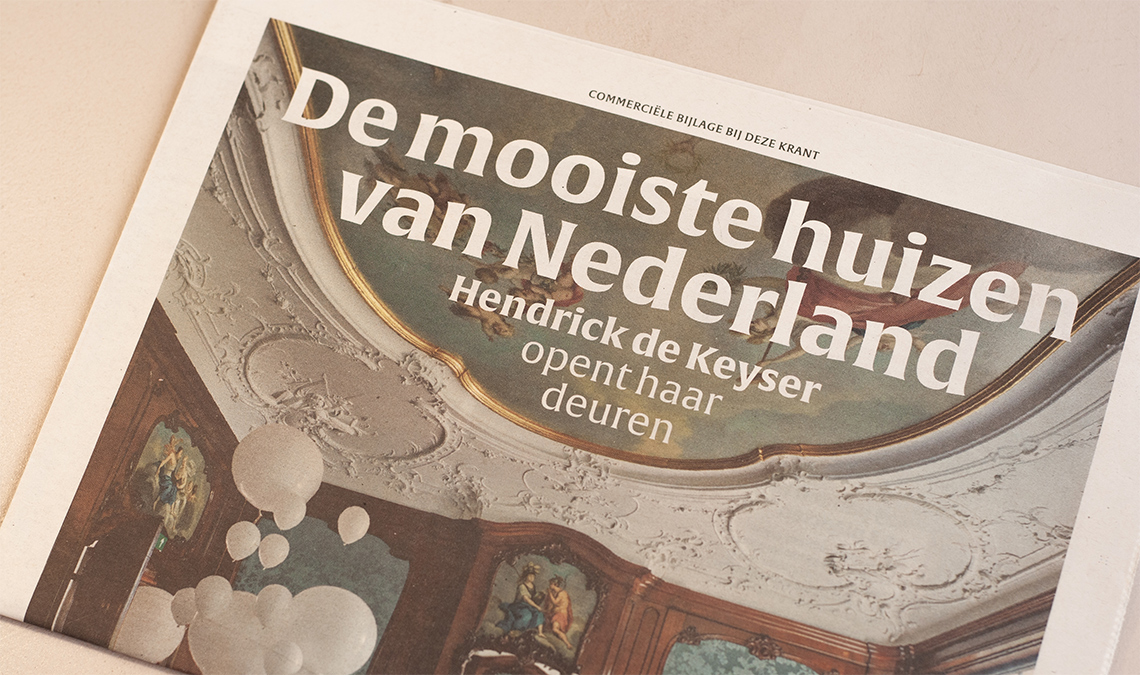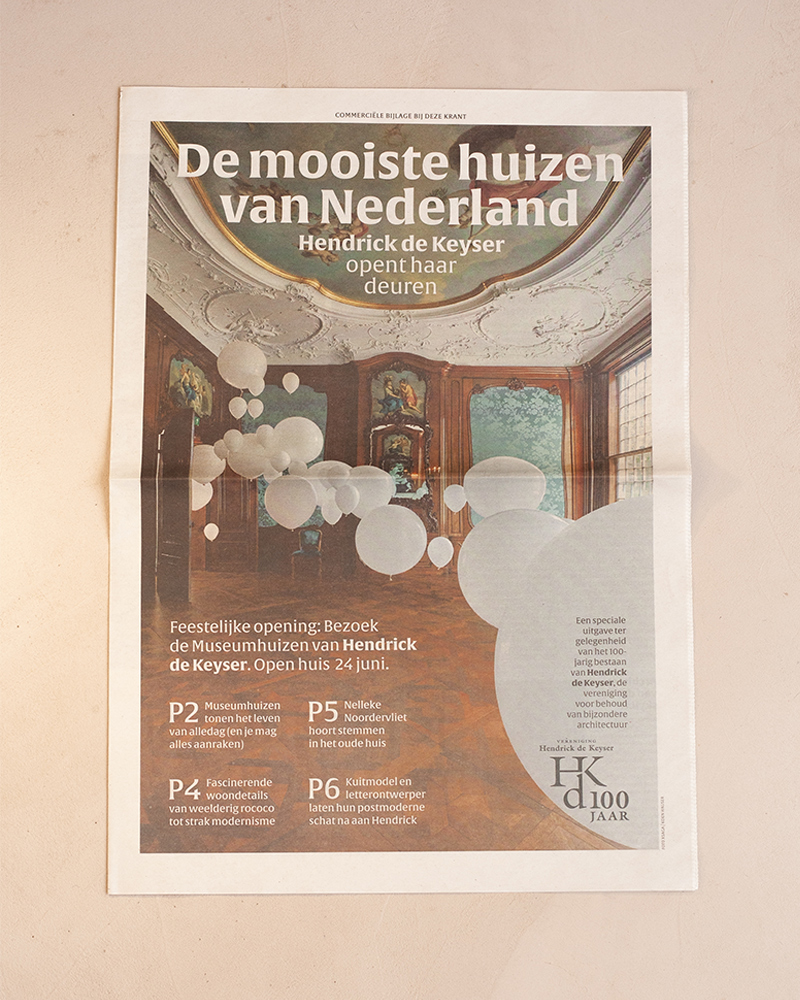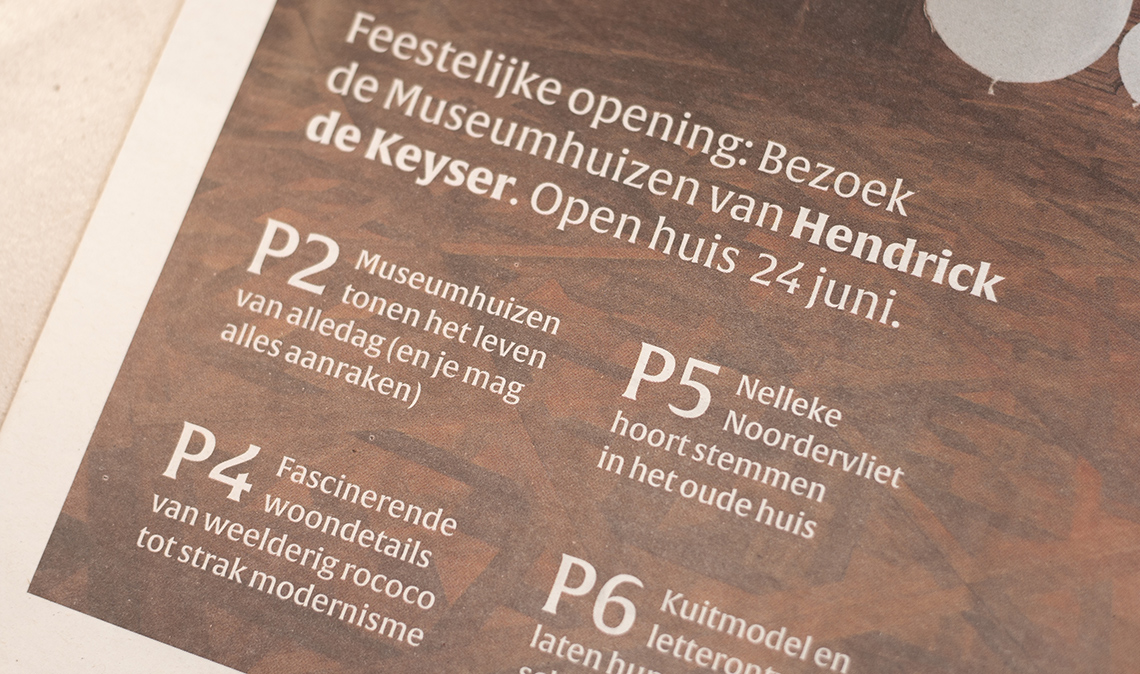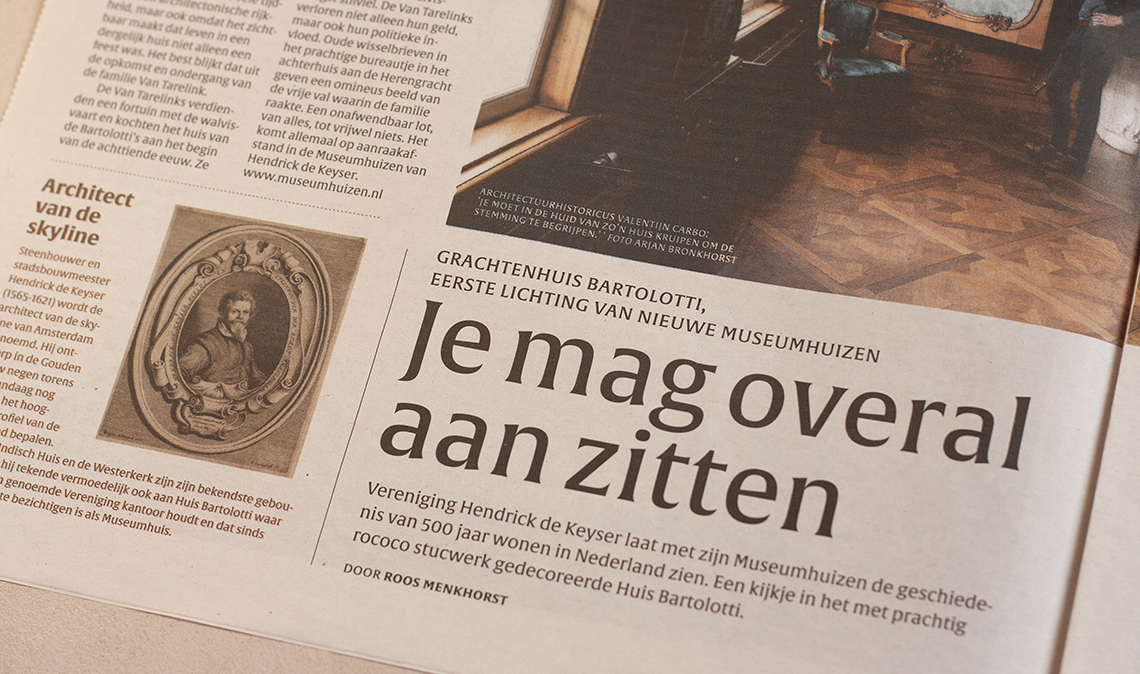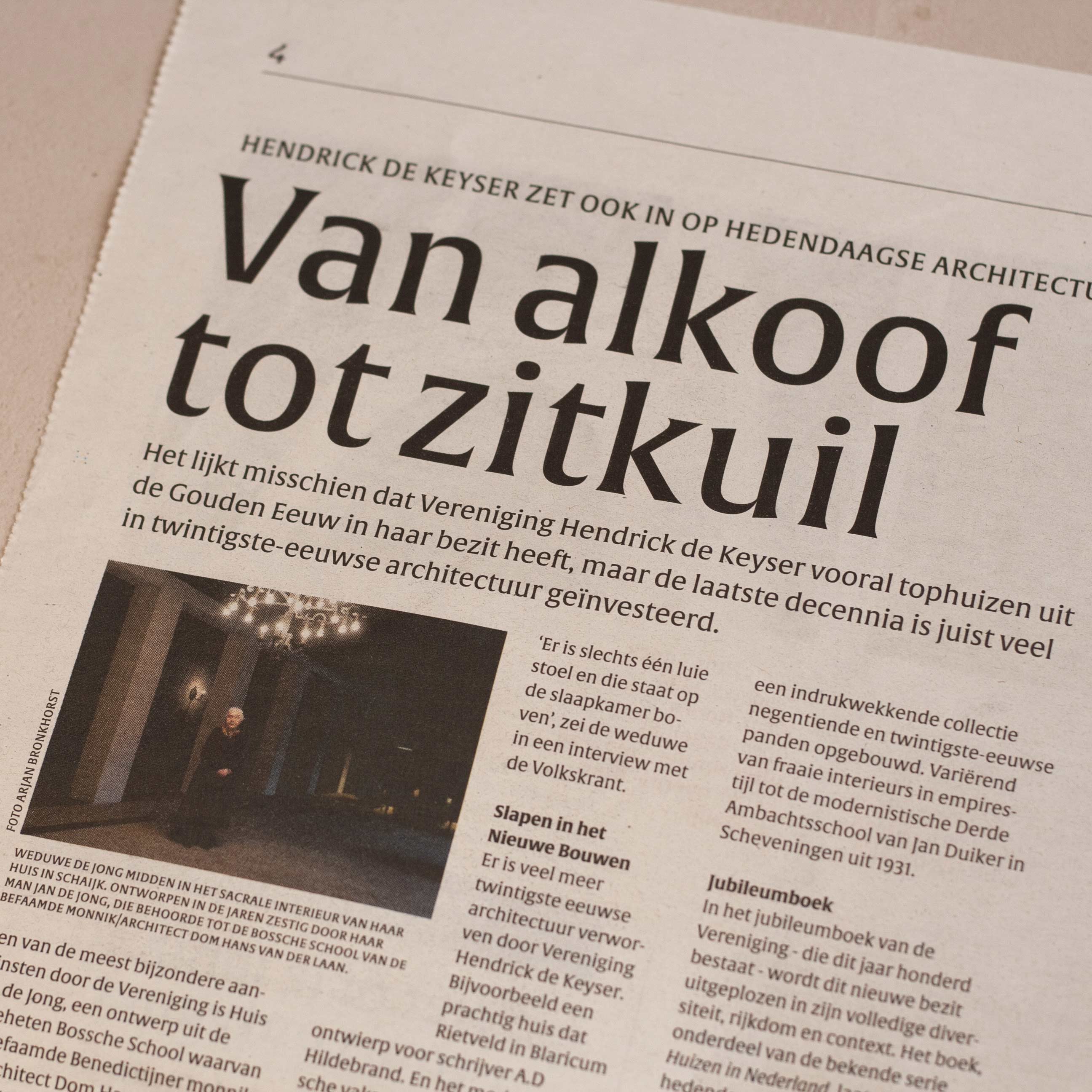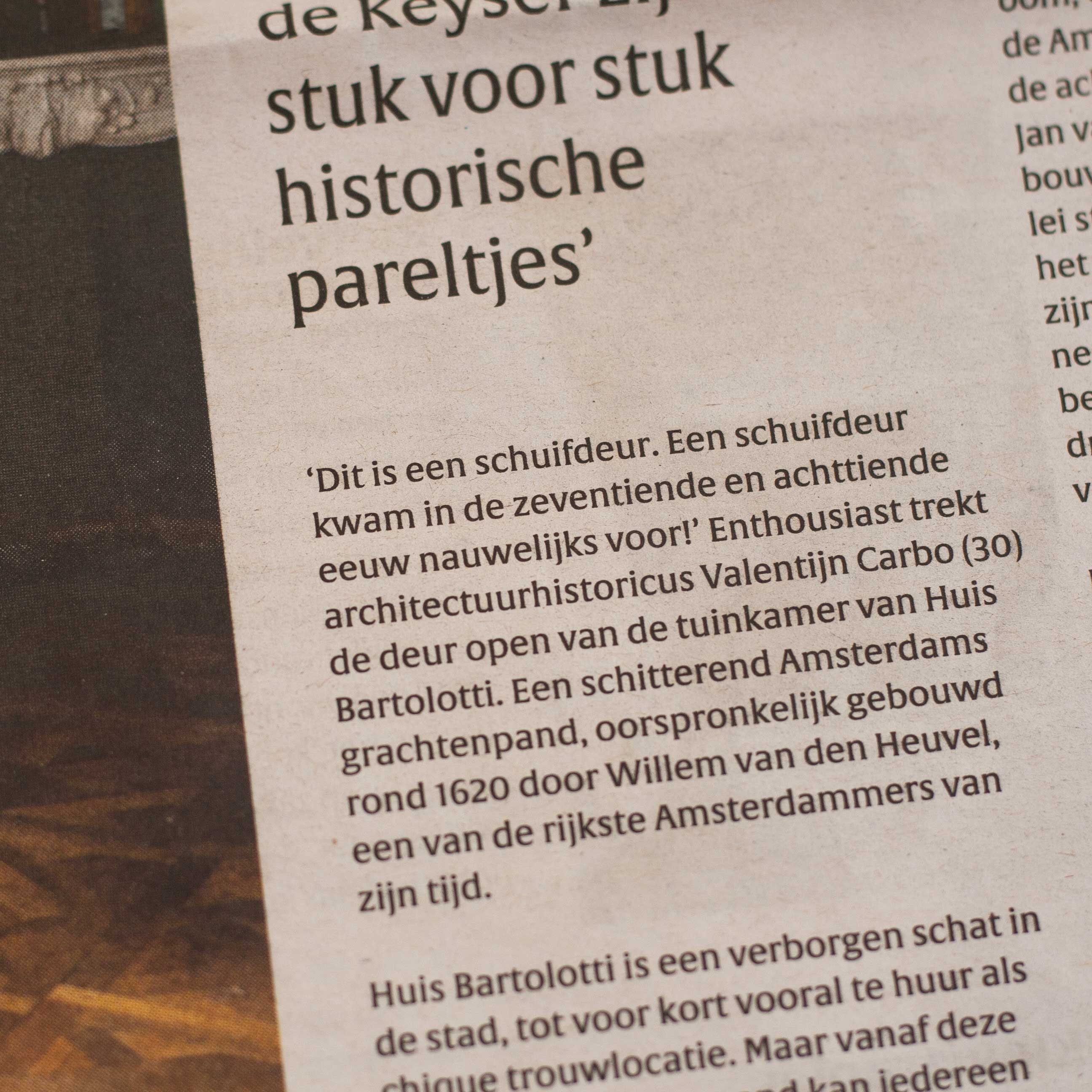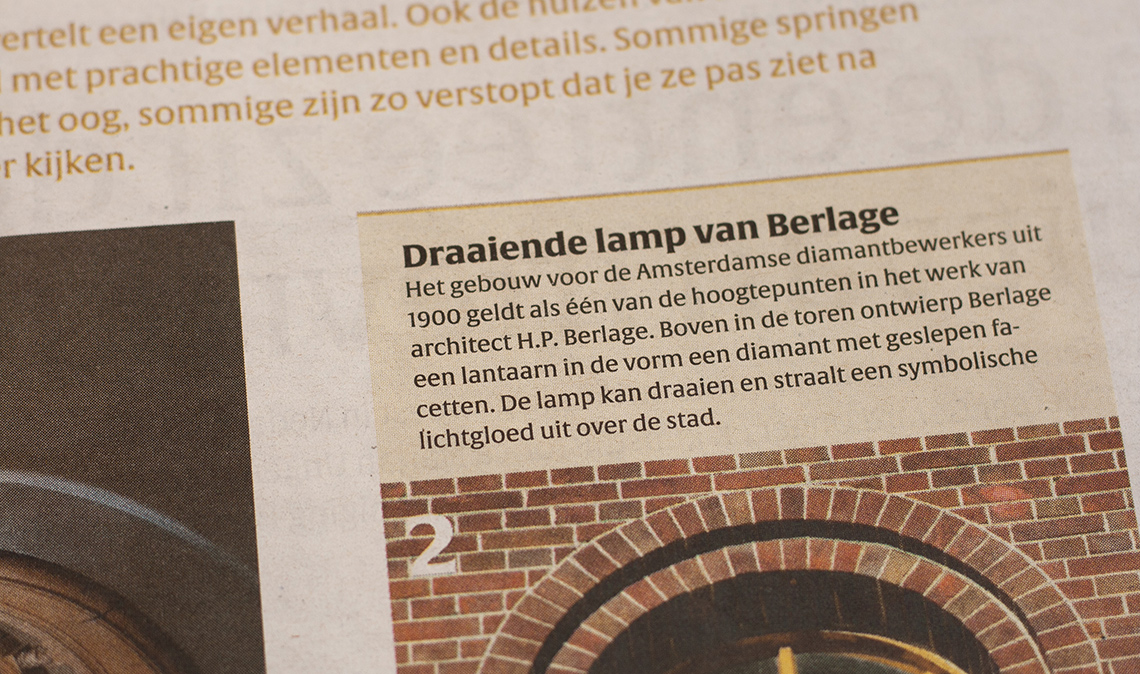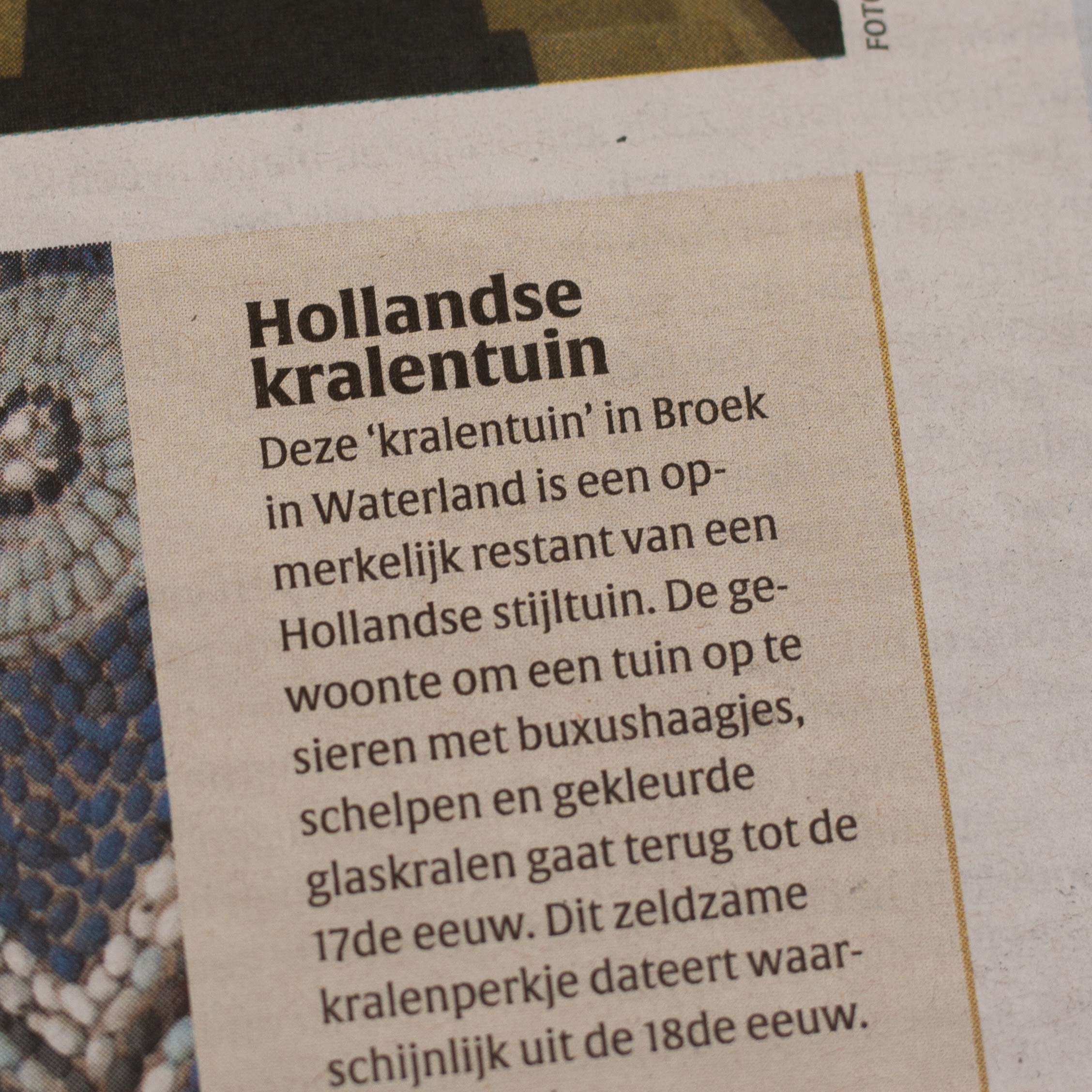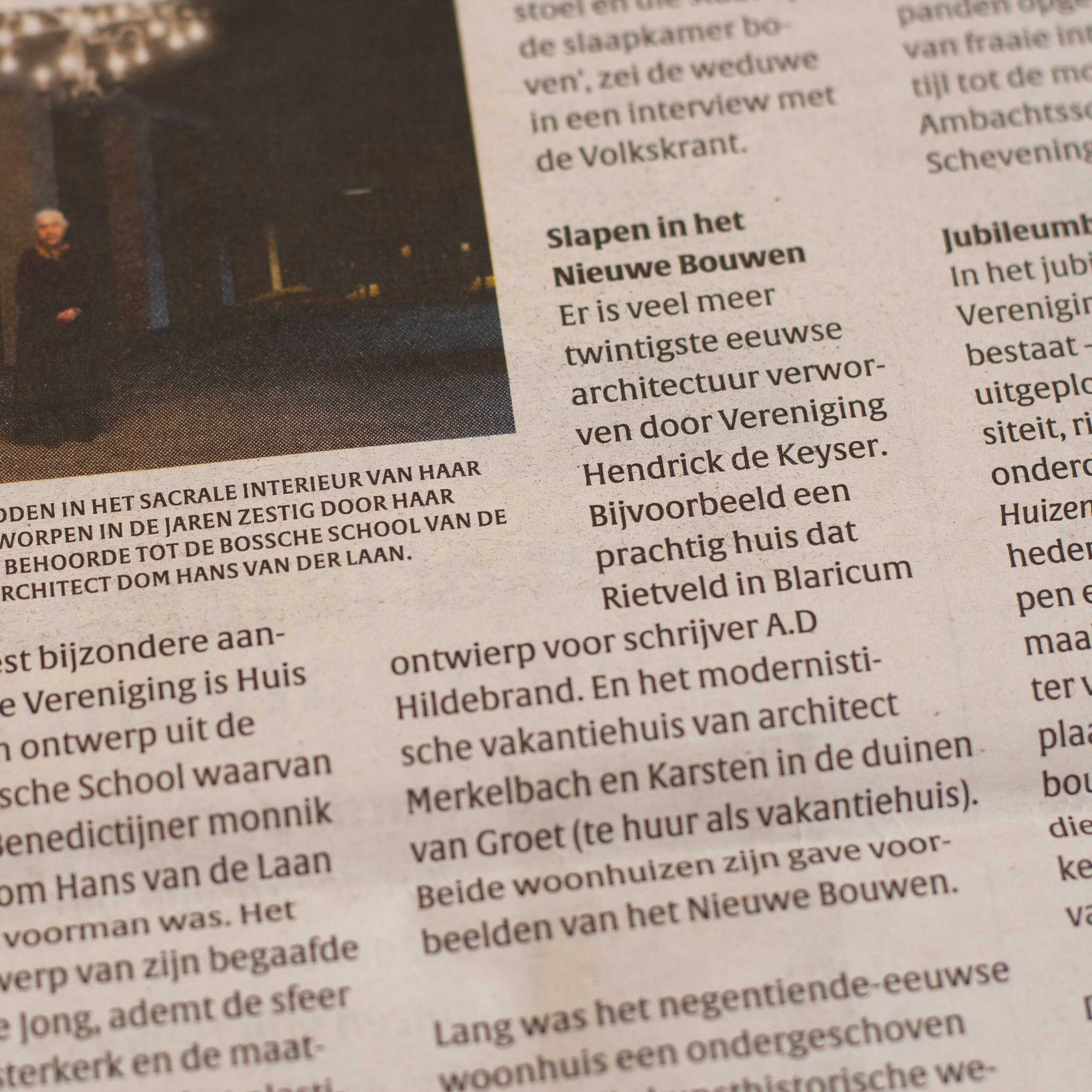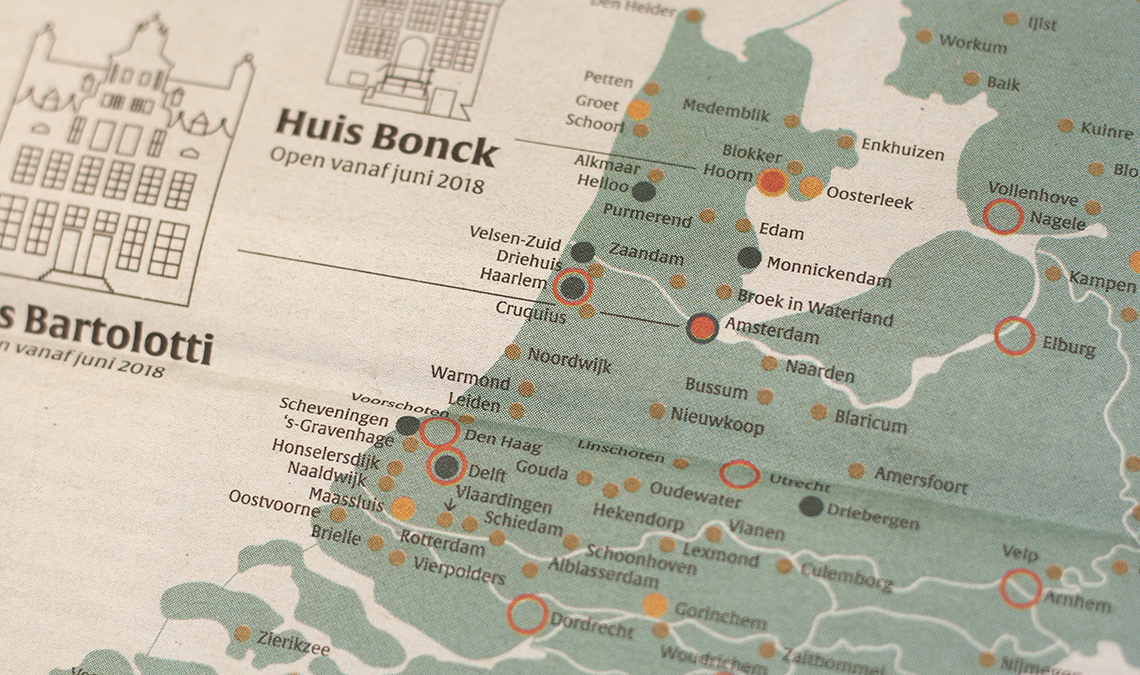
Alverata celebrates de Keyser Monumenten
For the Hendrick de Keyser Monumenten open house day, Alverata was chosen for the printed newspaper.
Alverata was used in texts and headlines for the special edition newspaper printed for the 100th anniversary of the Hendrick de Keyser Monumenten, celebrating the preservation of special architecture. The newspaper highlighted the most beautiful houses in The Netherlands that opened their doors for this occasion.
Alverata is Dr Gerard Unger’s resolutely modern font family inspired by his doctoral research on Romanesque type in 11th and 12th century Europe. Capital inscriptions are the basis for this face, which can be seen in its short, thorn-like serifs and flared forms. Alverata also brings in secondary considerations from the early 20th century model, but tweaks them to prevent blandness and imitation.
Alverata performs beautifully in both digital and physical applications, delivering excellent openness and legibility in small text and proving lively and attractive at large sizes. To complete the Alverata family, Dr Unger collaborated with Gerry Leonidas (University of Reading) and Irene Vlachou (Athens) to develop the Greek version, and with Tom Grace on the Cyrillic version.